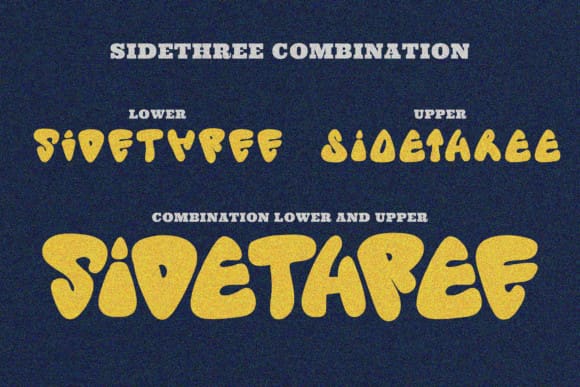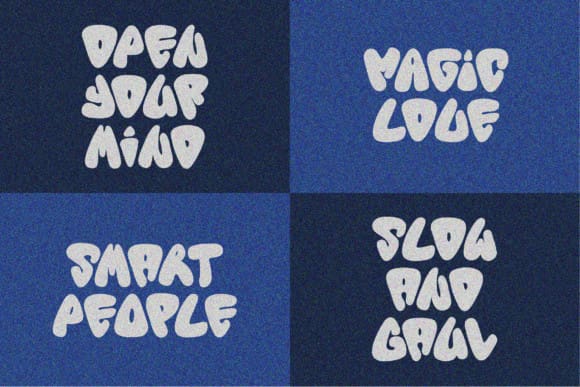
Sidethree Display Font
Sidethree Display Font is a quirky bold display font with a unique letterform. With its incredibly interesting and whimsical vibe, this font is perfect for a wide pool of design ideas.